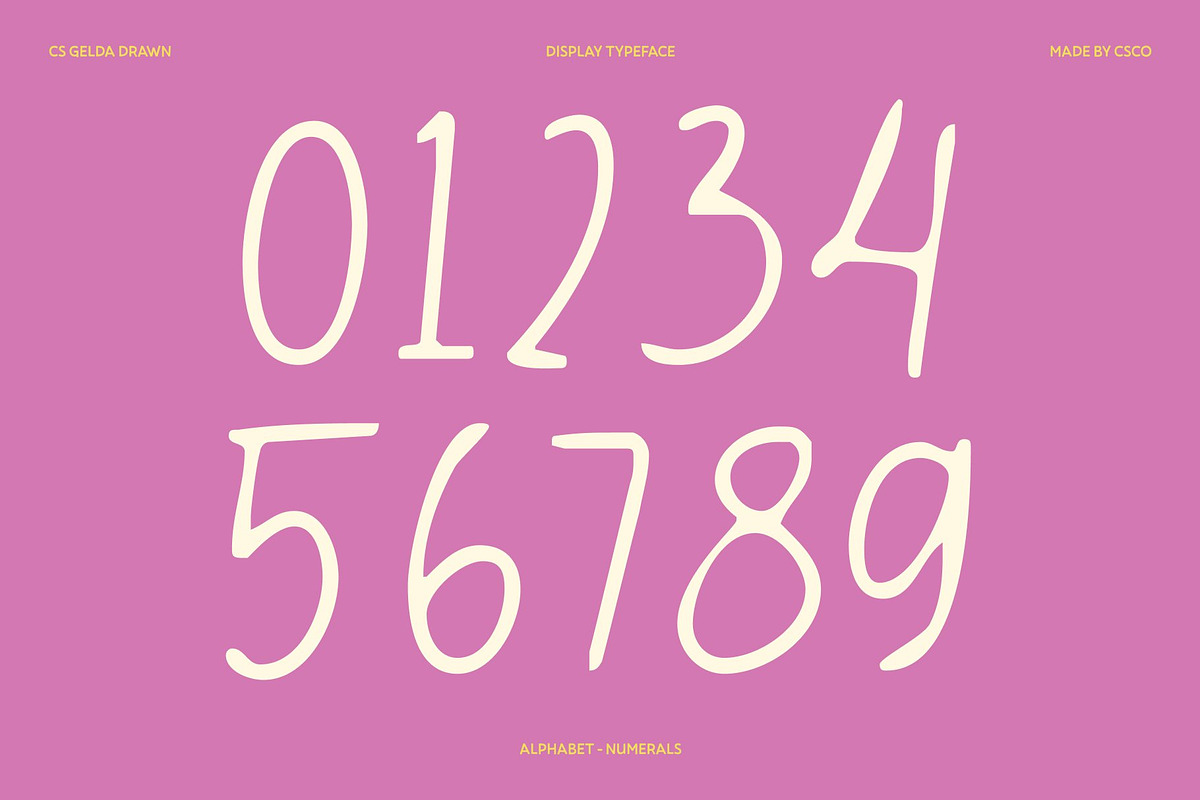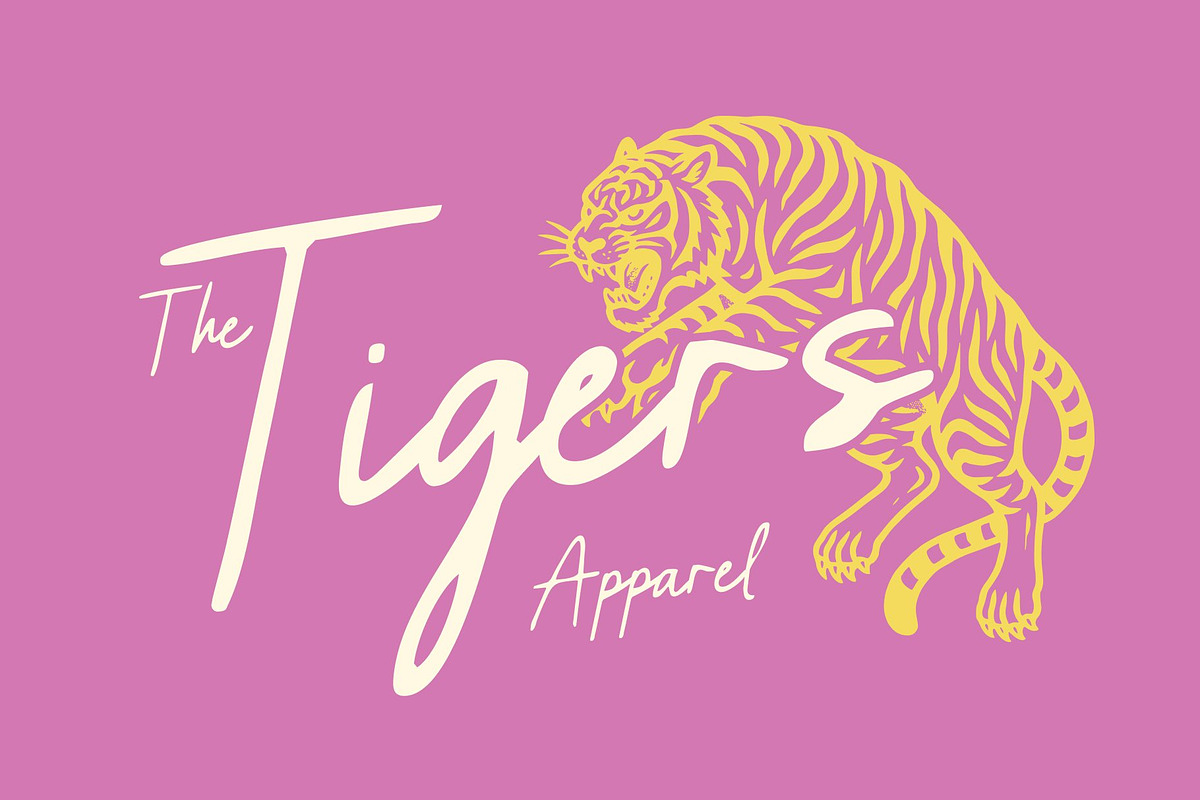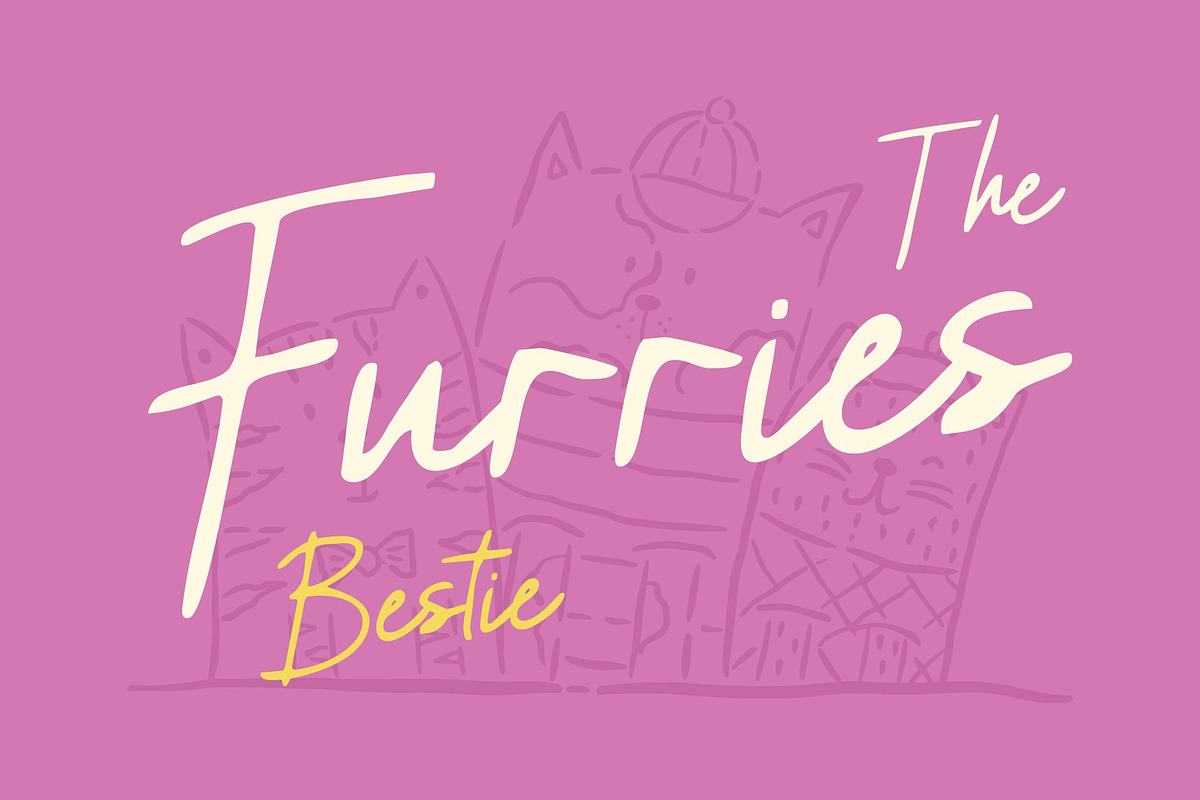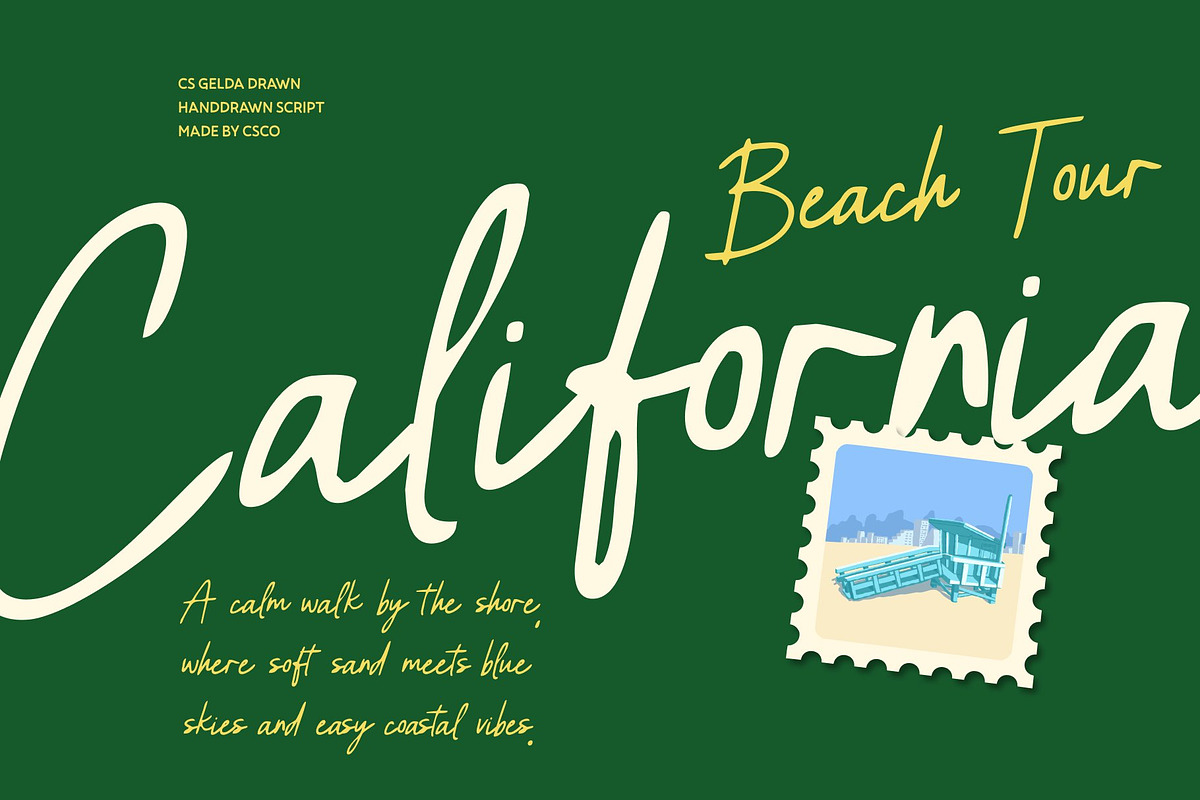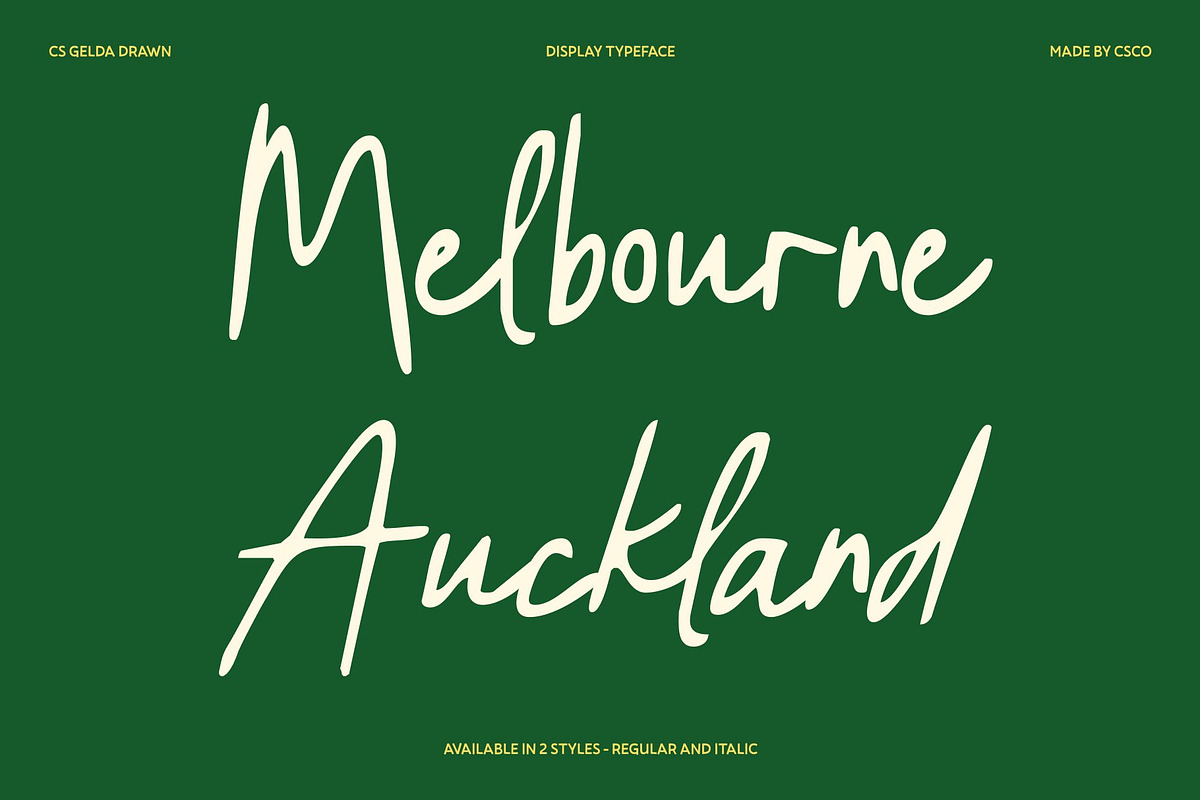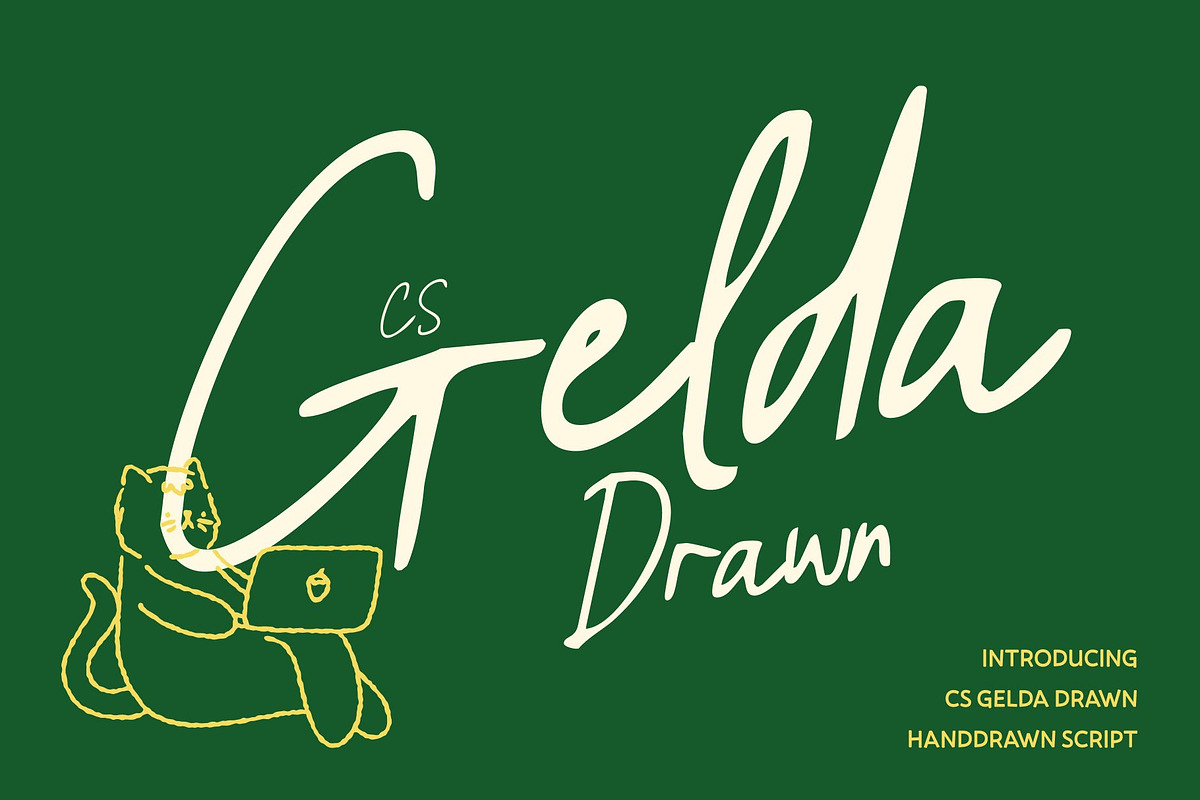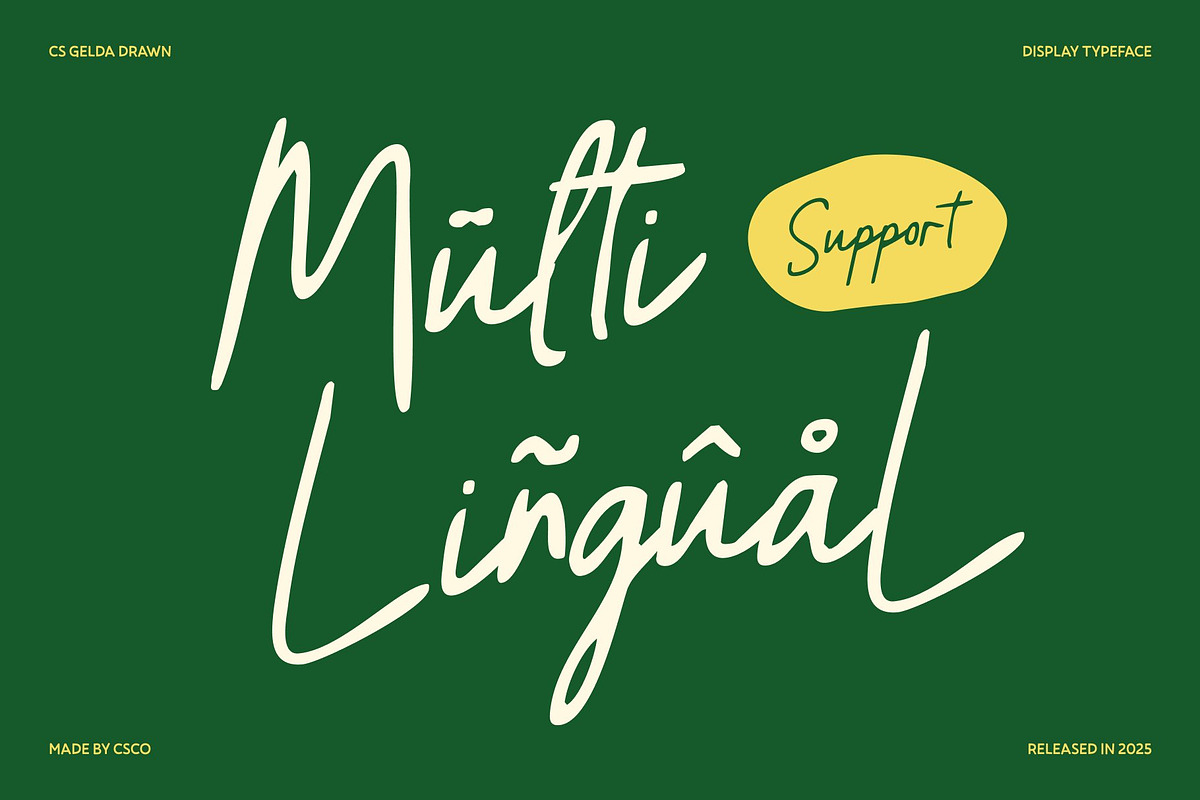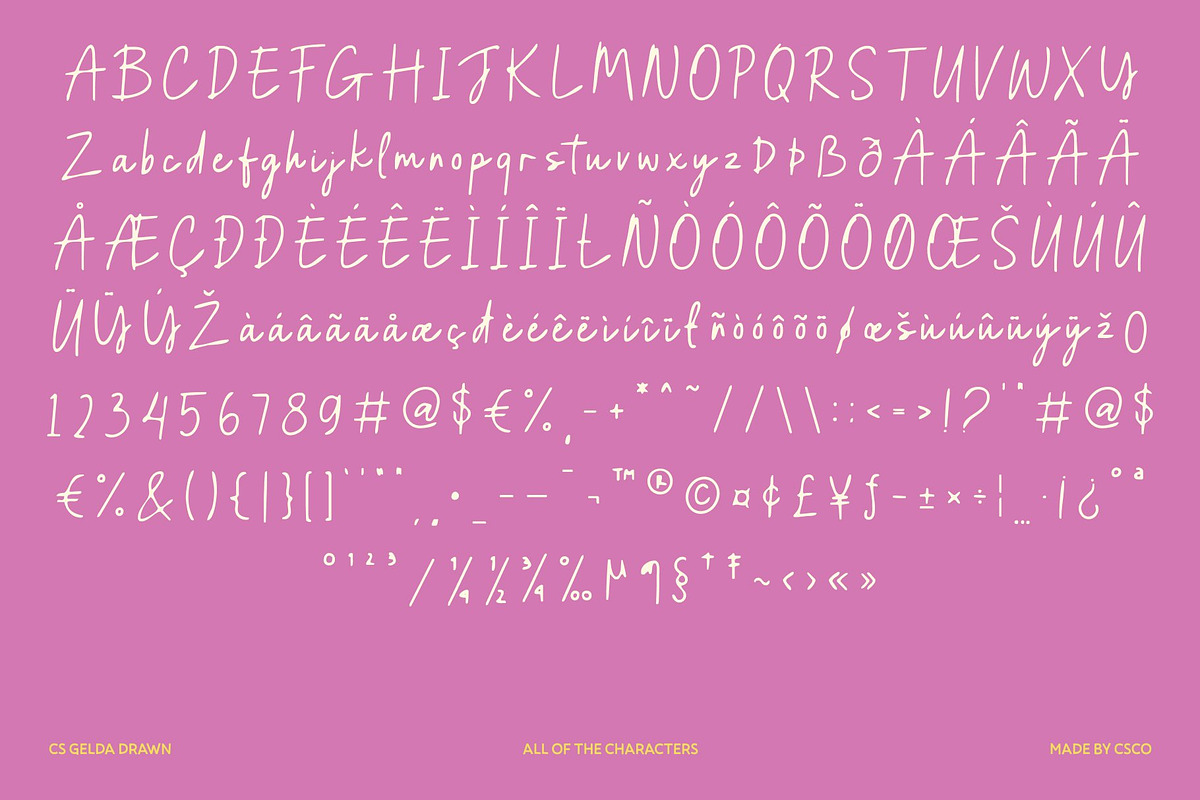
CS Gelda Drawn
CS Gelda Drawn – Handwritten Script Font: Modern Elegance in Every Stroke
Refined Beauty with a Contemporary Handwritten Feel This is a modern handwritten script font that blends graceful flow with contemporary elegance. Each letter is carefully shaped with smooth connections and balanced curves, creating a refined script style that feels personal yet polished. The drawn effect adds subtle texture, enhancing its authenticity and giving the font a soft, natural character.
Elegant Flow with Italian-Inspired Sophistication Inspired by Italian handwriting and timeless luxury, This font radiates charm, confidence, and refinement. Its clean monoline strokes move fluidly across the page, creating a natural rhythm that feels romantic and expressive. The combination of precision and organic movement results in typography that is elegant without feeling stiff or formal.
Perfect for Branding and Luxury Design This font shines in projects that require a high-end and stylish touch. Ideal for branding, wedding invitations, fashion labels, beauty products, and luxury packaging, this font elevates visual identity with effortless sophistication. Its handwritten elegance helps logos and headlines feel exclusive, warm, and memorable.
Versatile and Timeless Appeal From refined stationery and editorial layouts to modern digital graphics, this font adapts beautifully across mediums. Its harmonious structure, flowing strokes, and subtle drawn texture make it an excellent choice for designers seeking modern elegance, versatility, and a confident handwritten aesthetic.
- CS Gelda Drawn Regular
- CS Gelda Drawn Italic